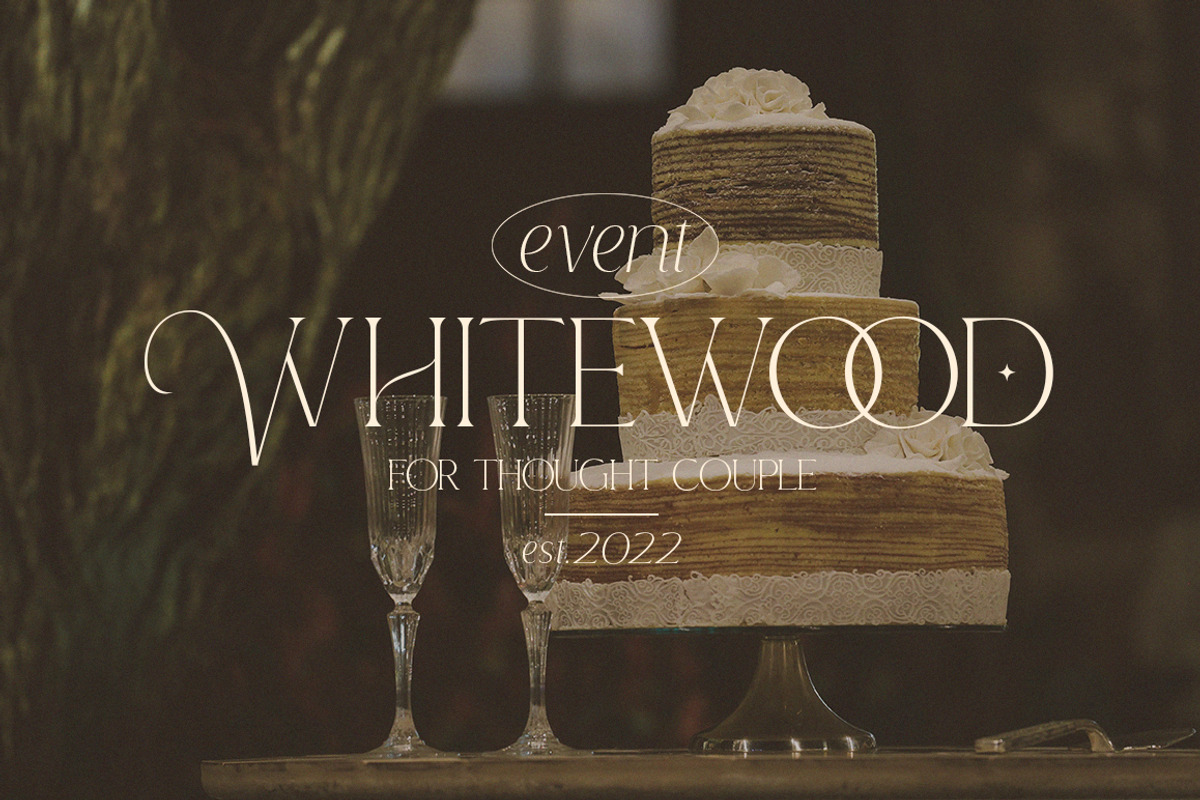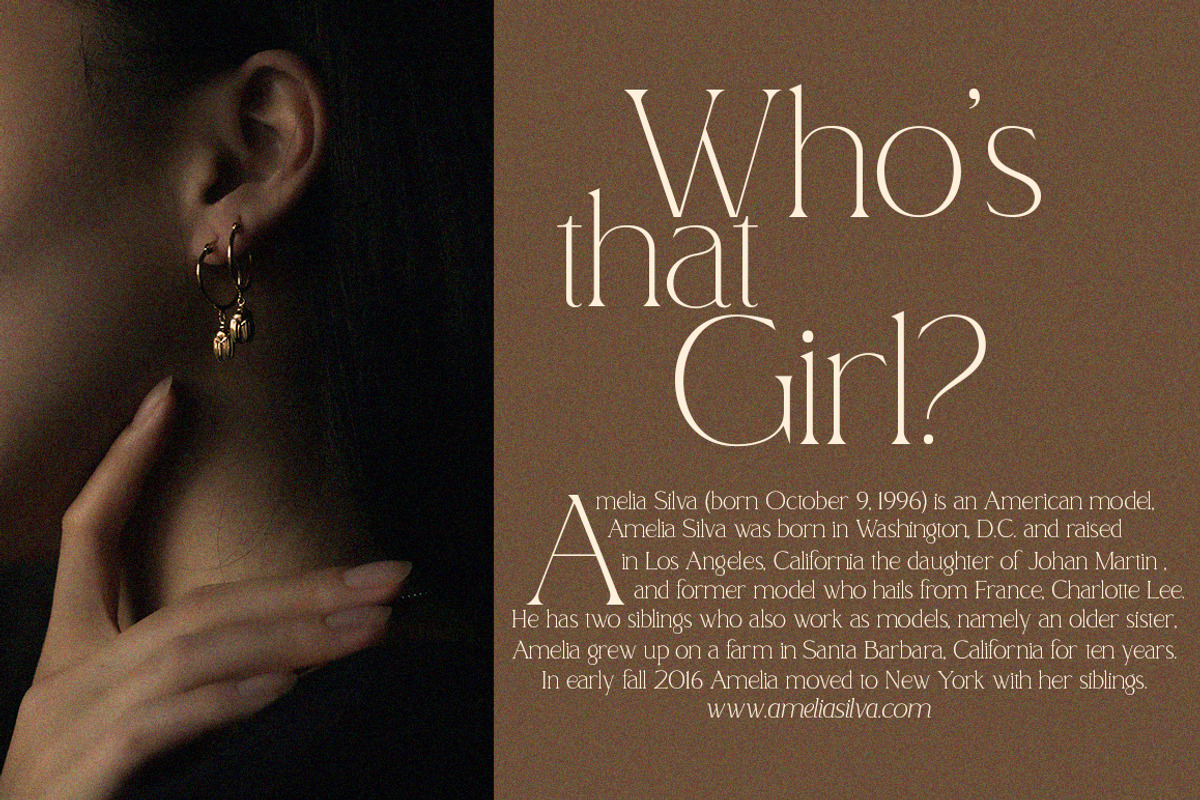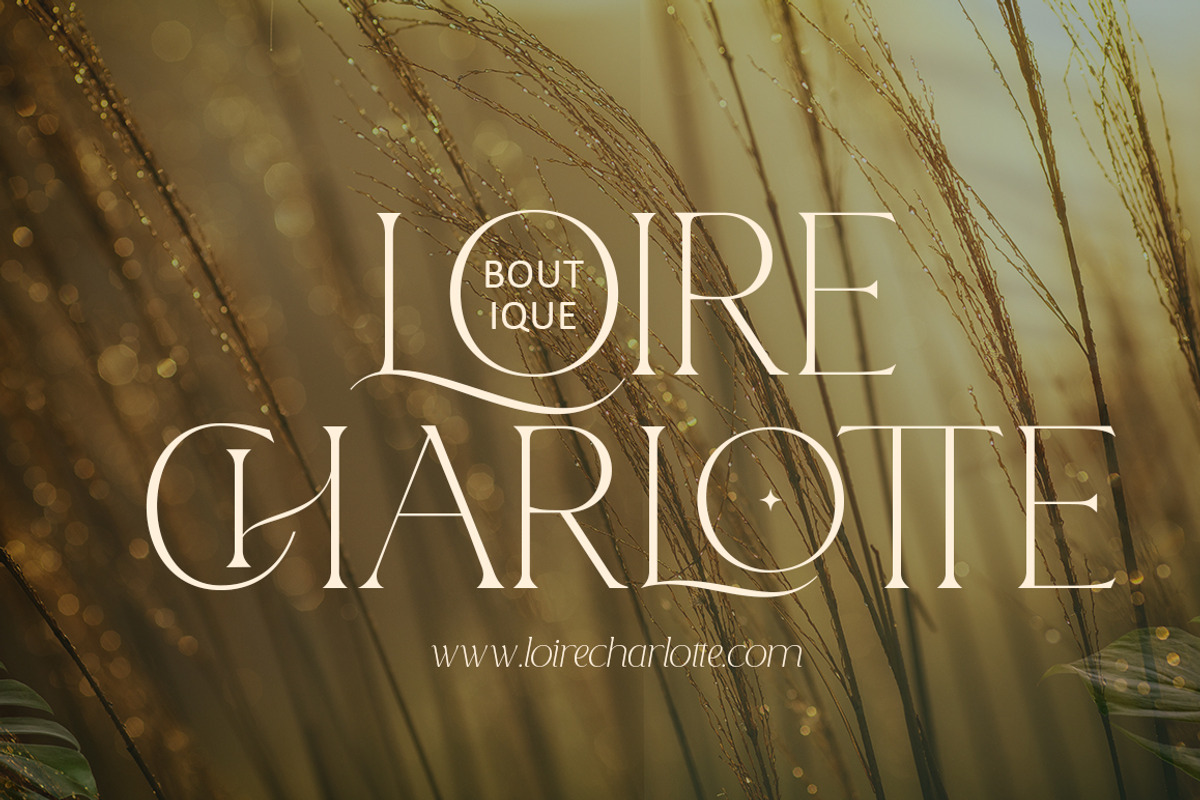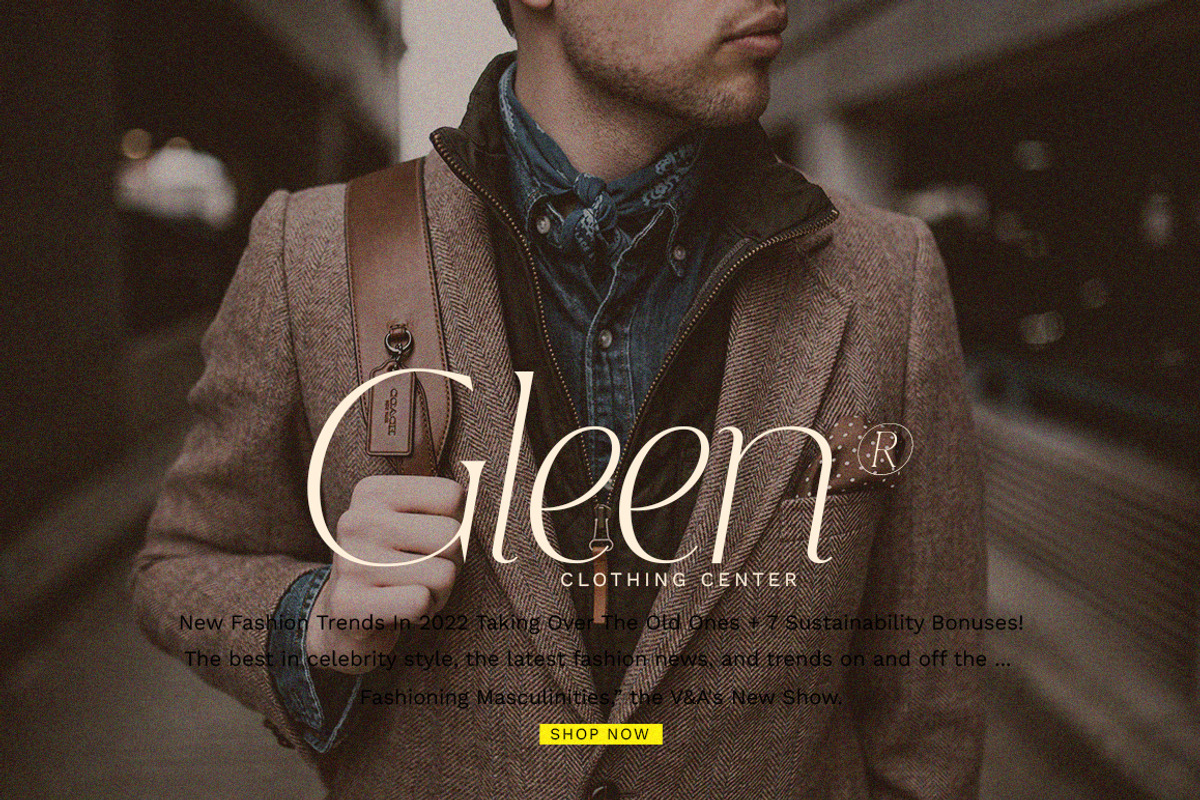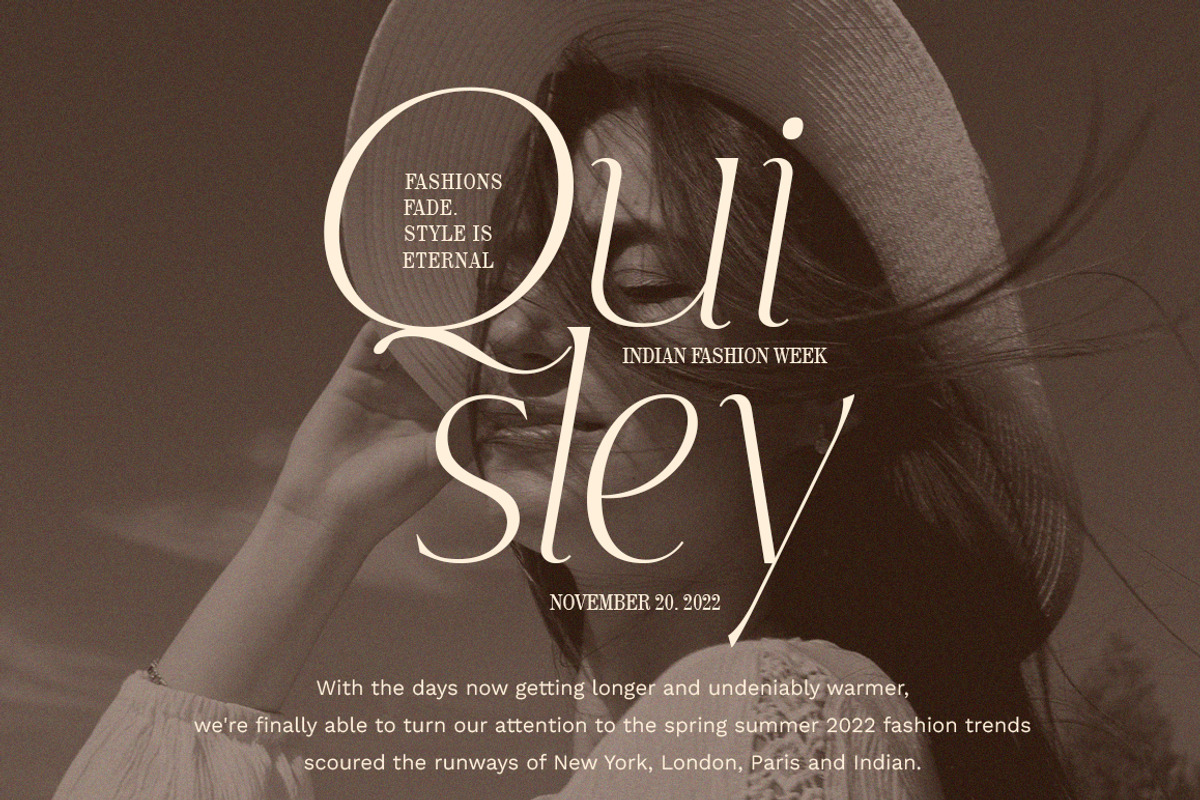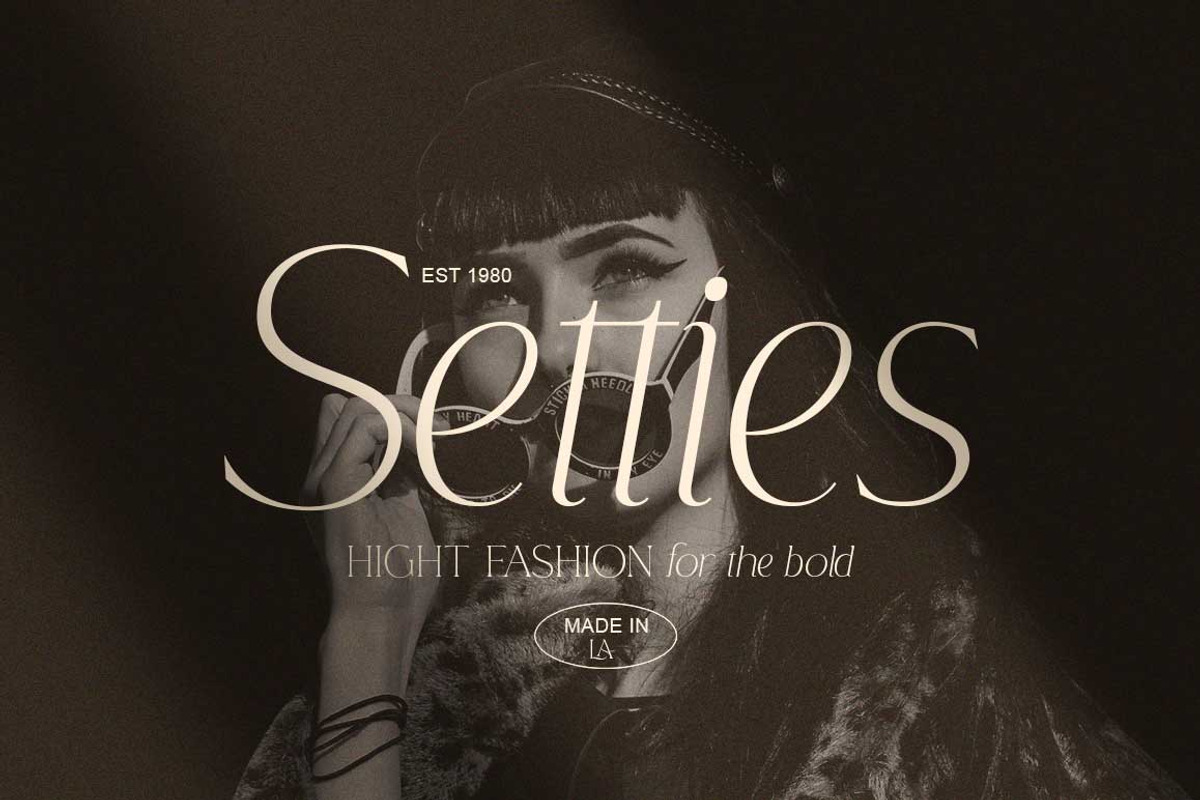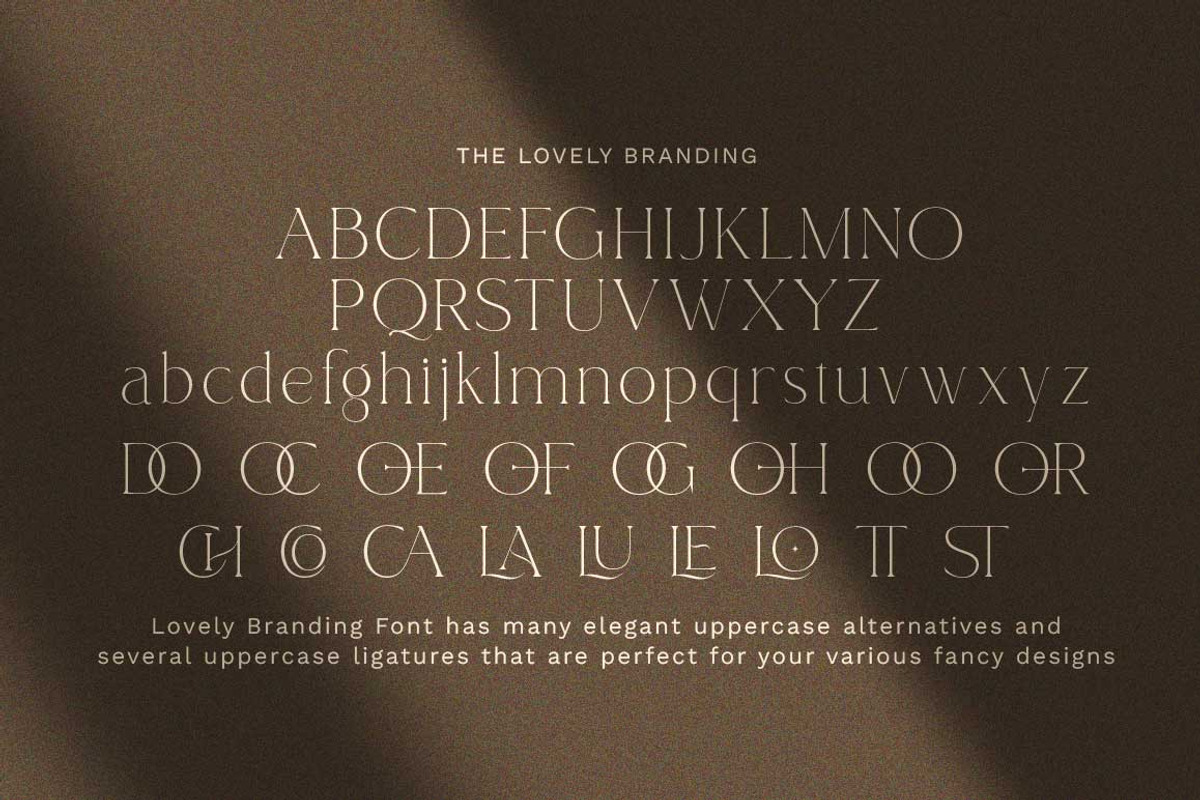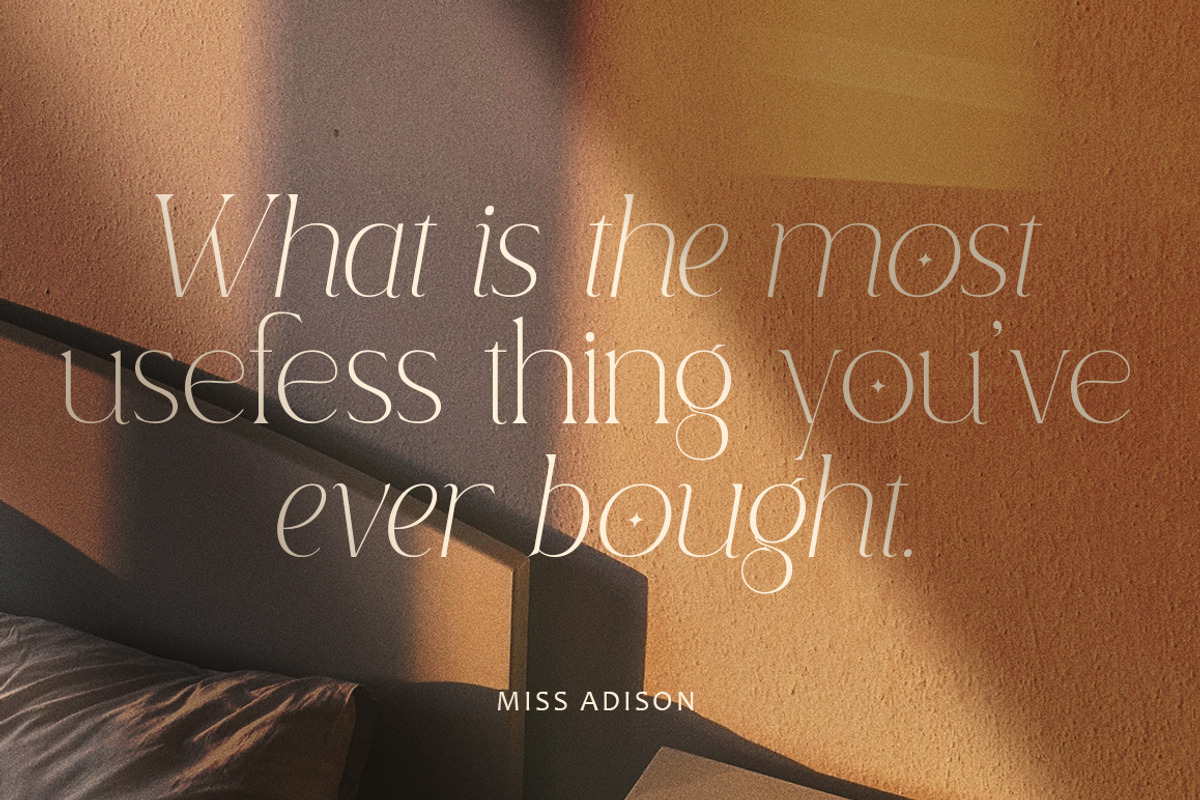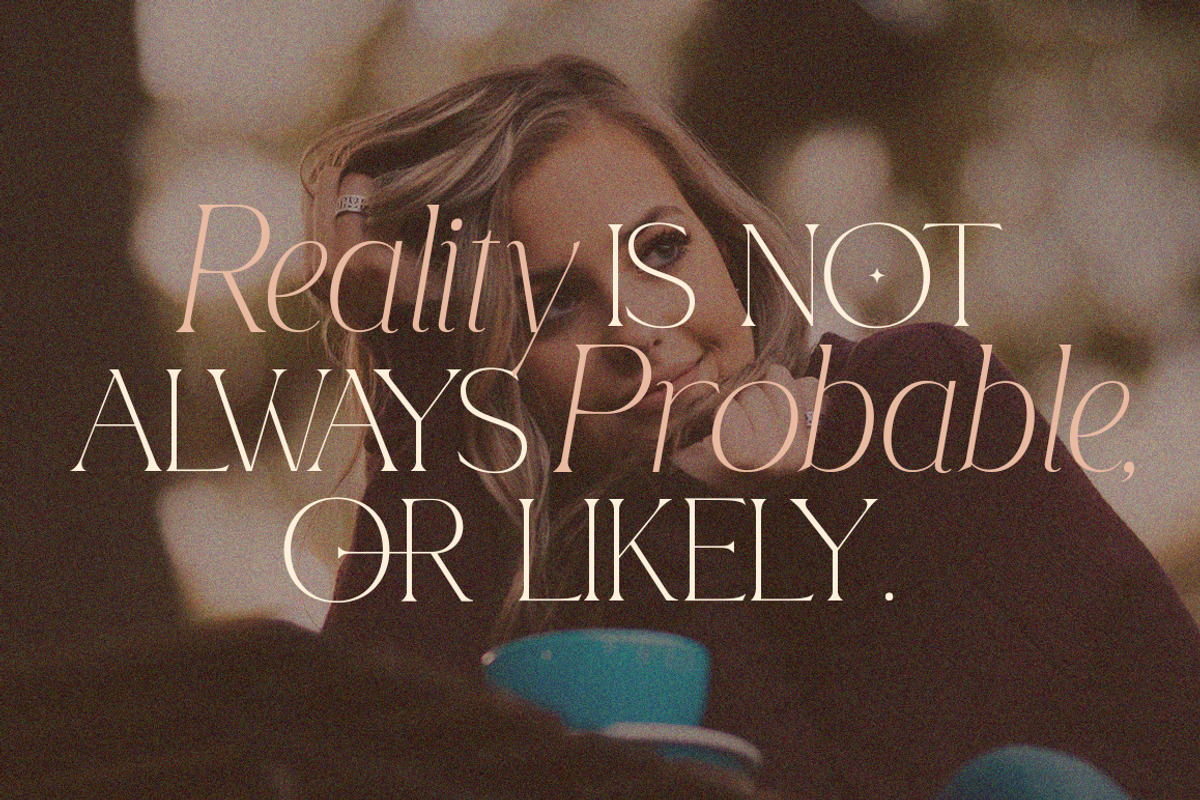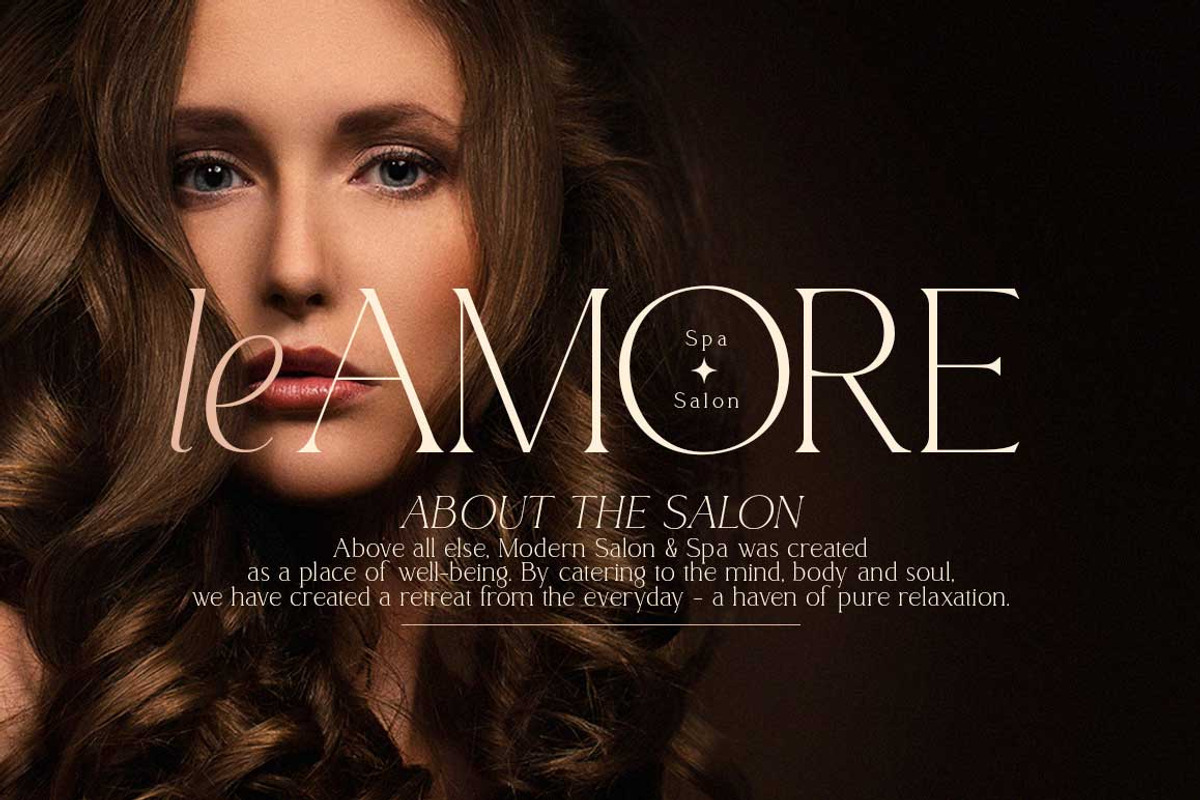
Lovely Branding
Lovely Branding is the newest serif combination font. Beautiful plain serif combined with italic serif is the main attraction of this font. Also Has modern serif characters in it. The elegant combination font is perfect for your next fancy design project.